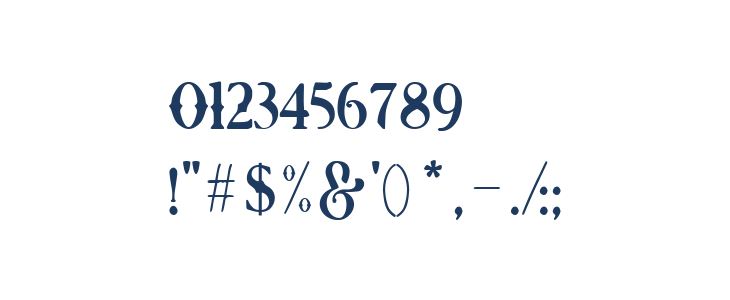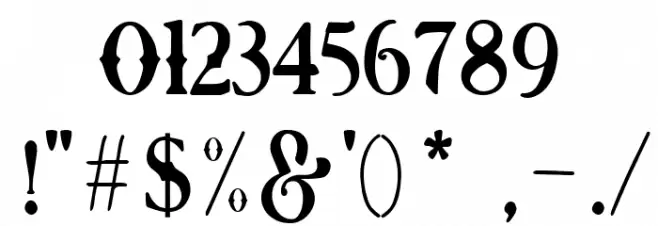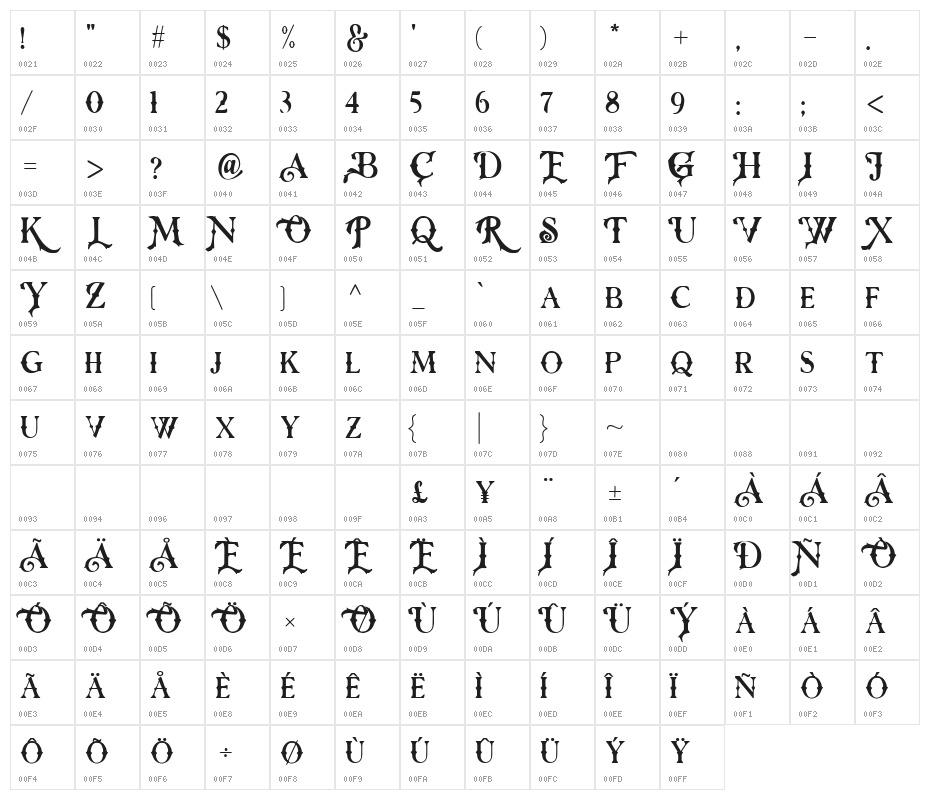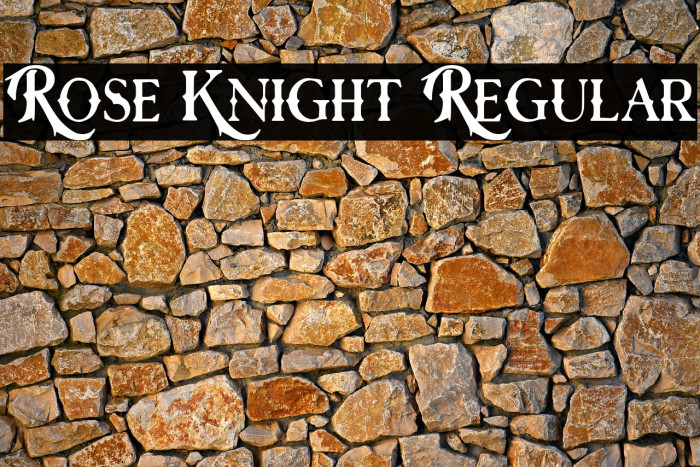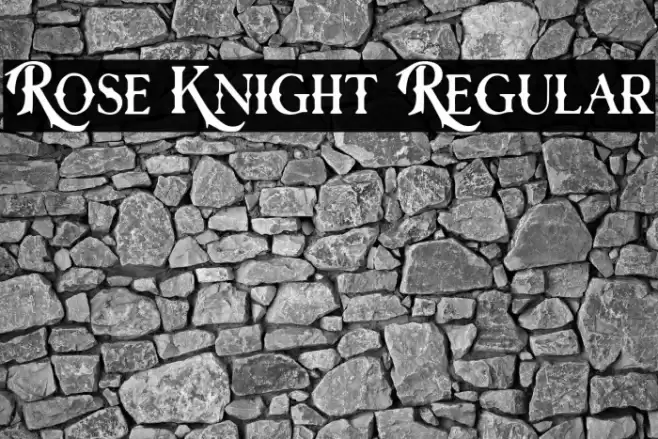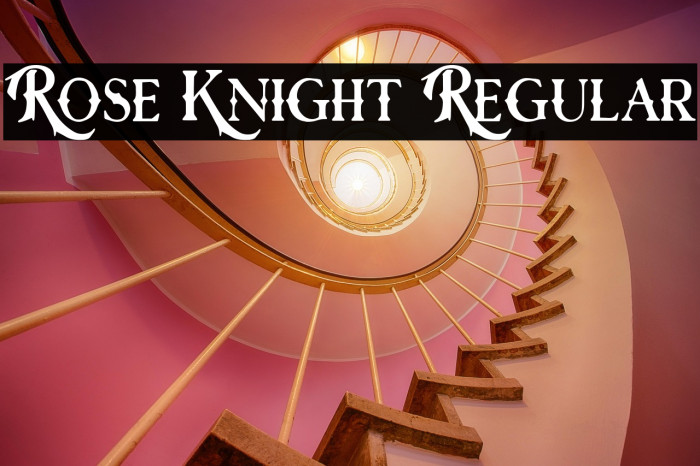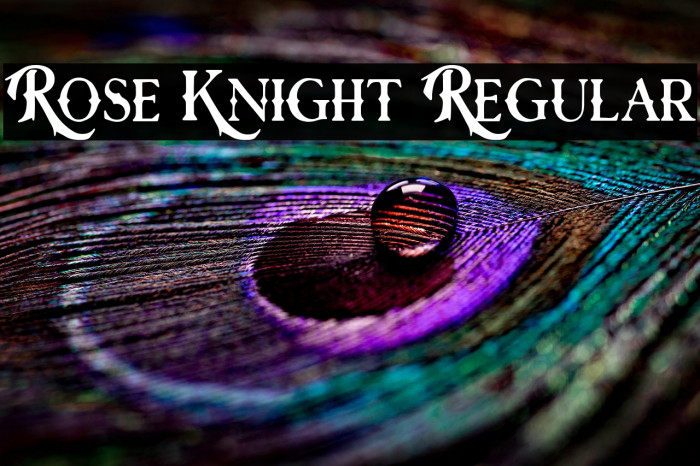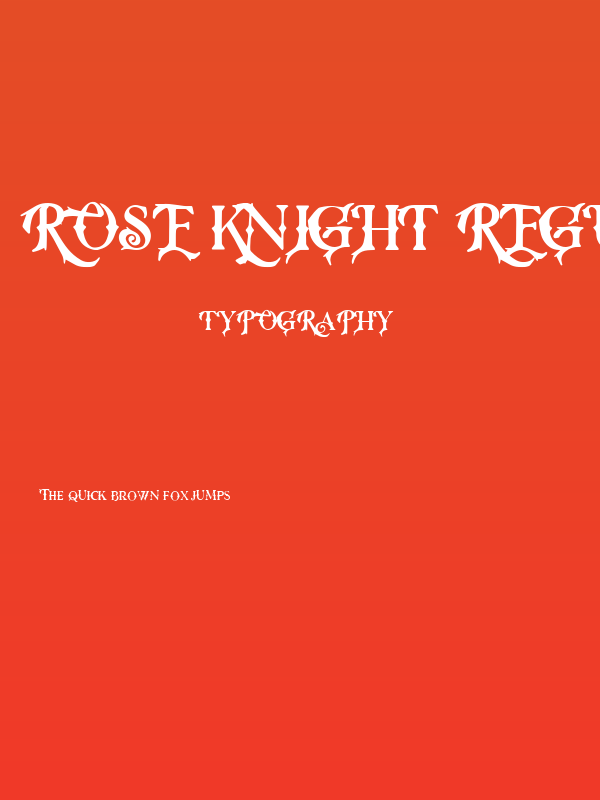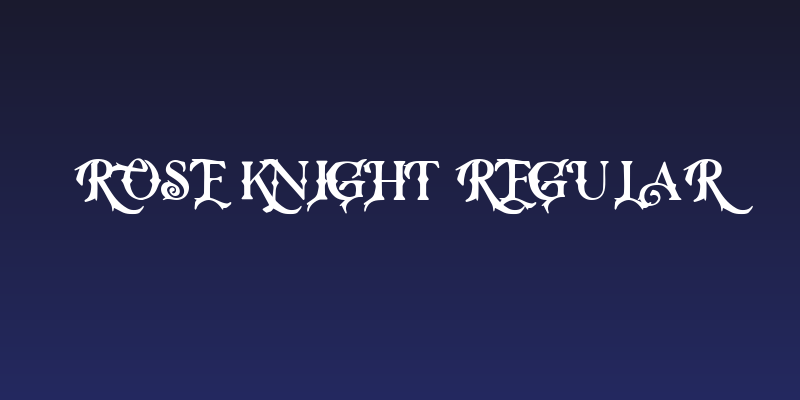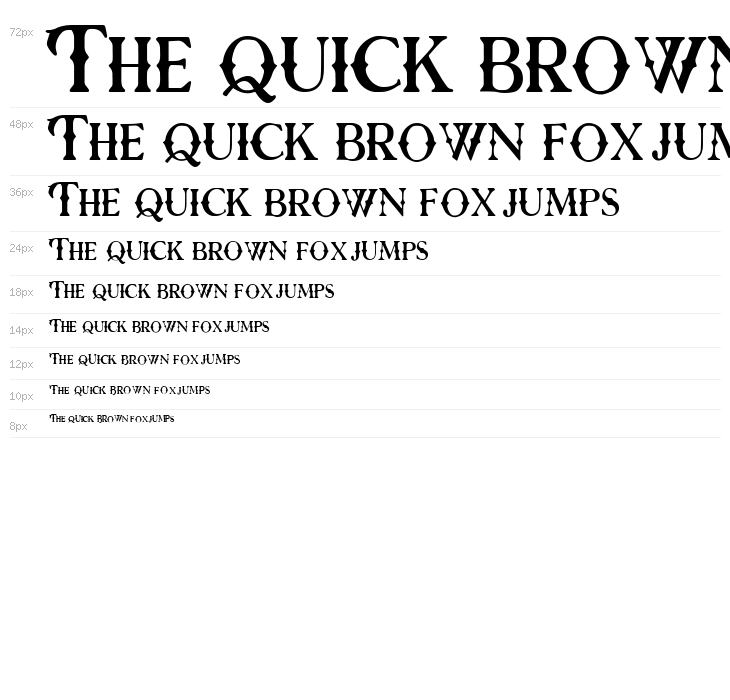
Rose Knight Regular Font
Rose Knight Regular Description
This font features an elaborate and decorative style, characterized by its intricate and ornate design elements. The uppercase letters are adorned with flourishes and embellishments that give it a medieval and gothic appearance. The lowercase letters maintain a similar decorative flair, ensuring consistency throughout the typeface. The numerals are bold and distinct, matching the overall aesthetic of the font. Special characters are also designed with the same attention to detail, making this font suitable for projects that require a touch of elegance and historical charm.
| Overall Style | Gothic, Medieval, Decorative |
| Proposed Projects | Ideal for fantasy-themed designs, book covers, posters, and branding that requires a historical or mystical touch. |